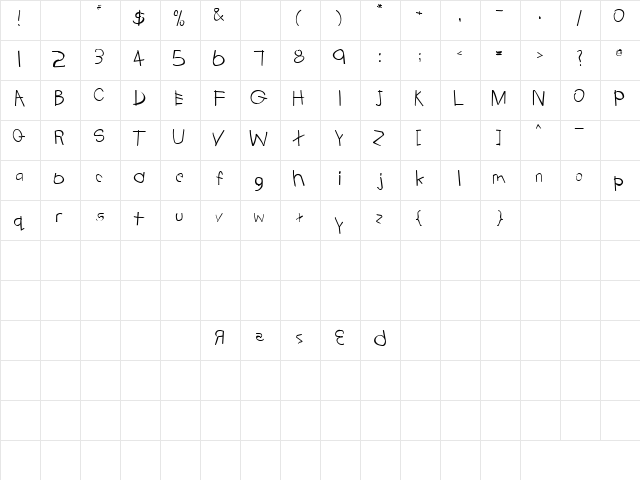
Catatonic 9 Regular
Design Context for Catatonic 9 Typeface
Catatonic 9 is a composed and adaptable typeface that performs quietly and consistently across a wide range of design contexts.